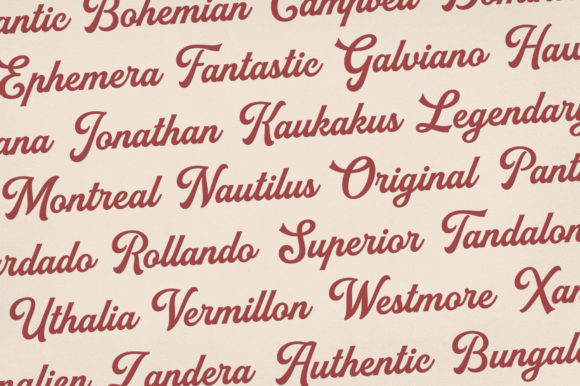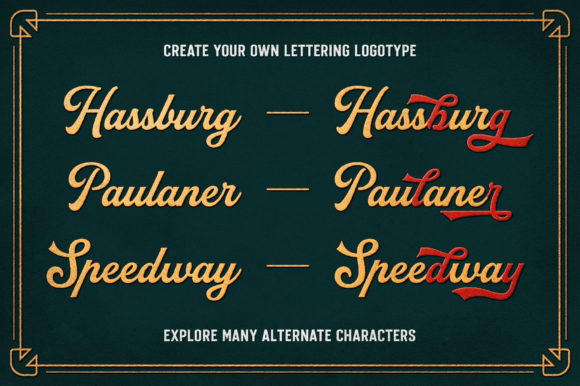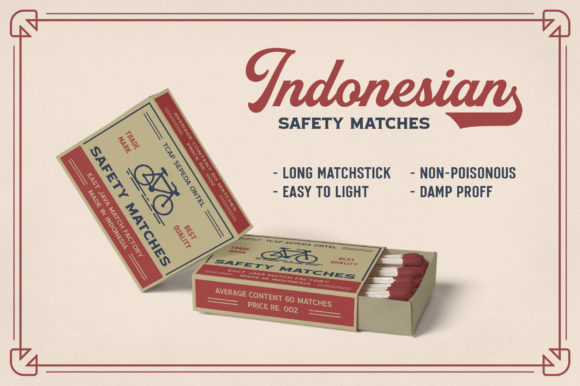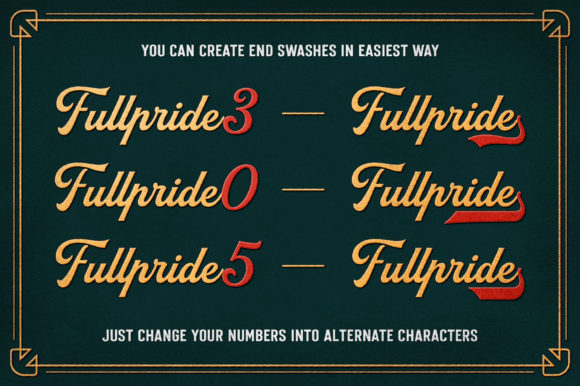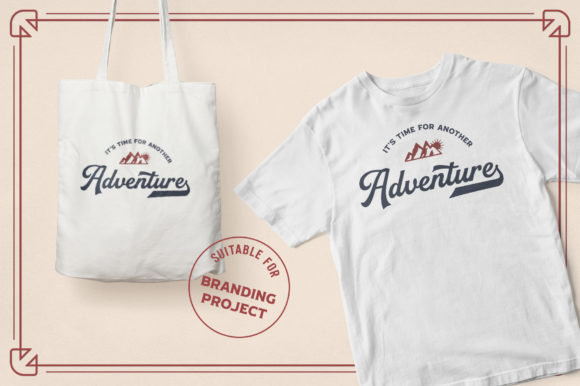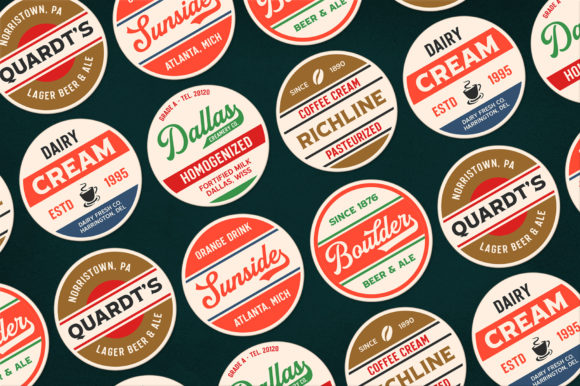
Introduction to Rallington Font
Rallington is a great display font.
It feels playfully nostalgic and delivers an incredible vintage aesthetic Use it to add that special retro touch to any design idea you can think of.
Key Features of Rallington Font
Why Choose Rallington Font?
Rallington Font offers exceptional quality and versatility, making it a valuable addition to your design toolkit. Whether you’re creating for personal projects or commercial use, Rallington Font delivers professional results.